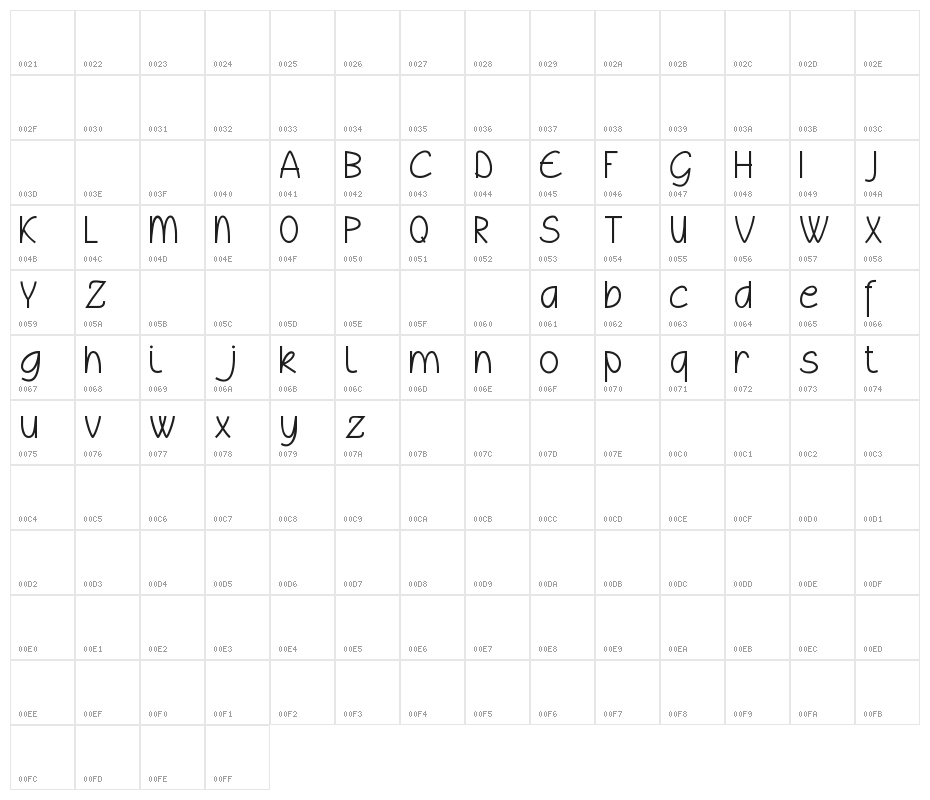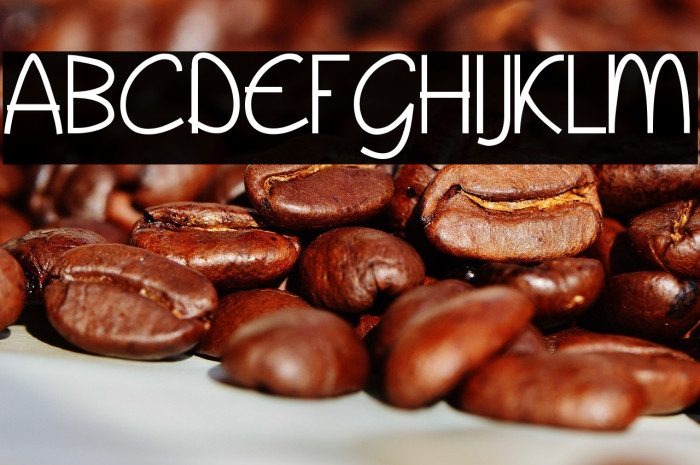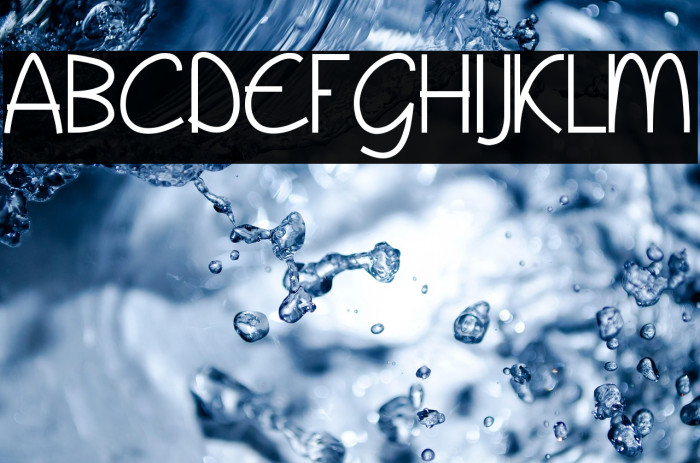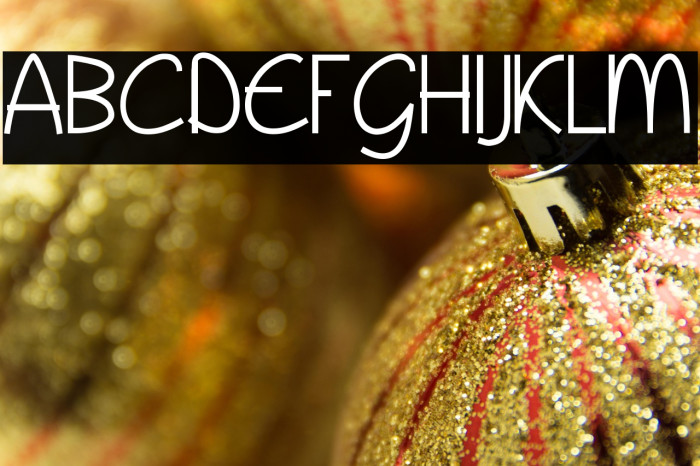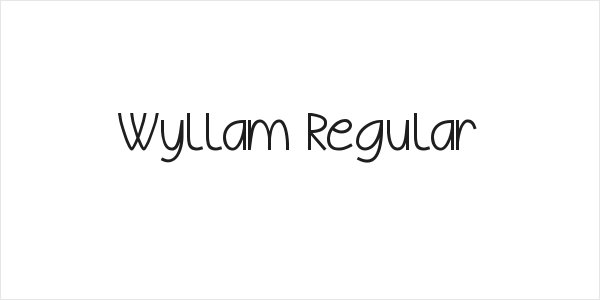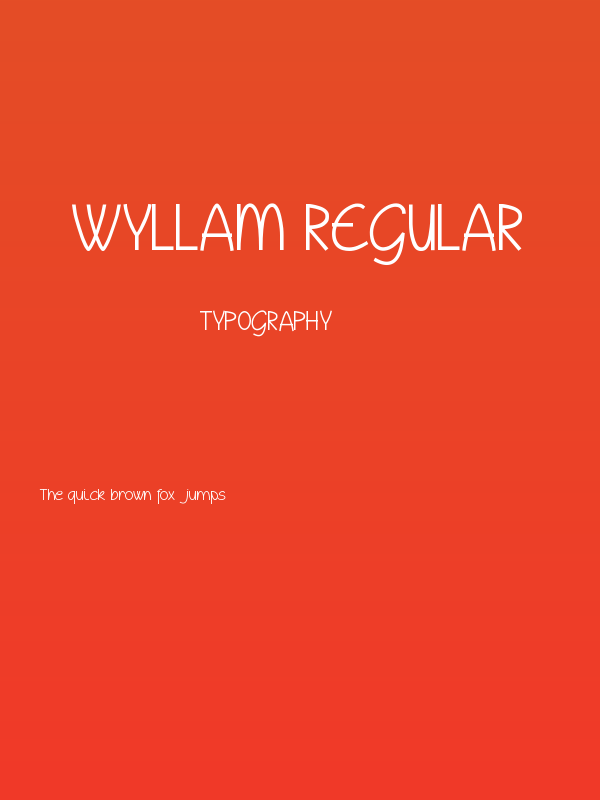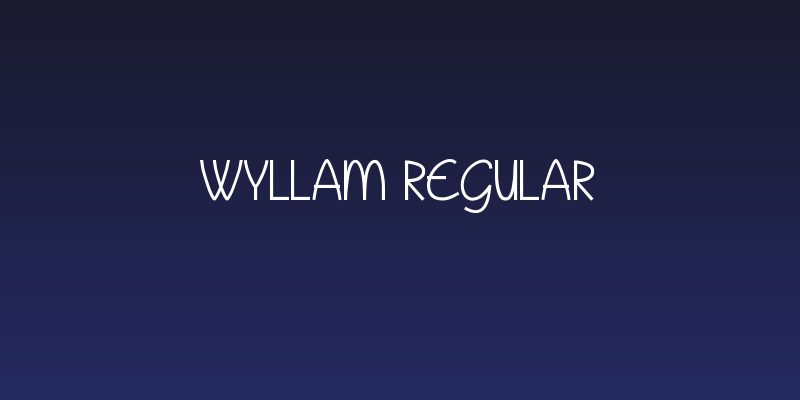
Wyllam Regular Font
Wyllam Regular Description
This font features a playful and whimsical design, characterized by its rounded and slightly elongated letterforms. The strokes are consistent in width, giving it a uniform appearance. The letters have a slight curl at the ends, adding a touch of elegance and uniqueness. The overall look is clean and modern, making it suitable for a variety of design projects. The font maintains readability while offering a distinctive style that stands out.
| Proposed Projects | Ideal for children's books, playful branding, invitations, and creative posters. |